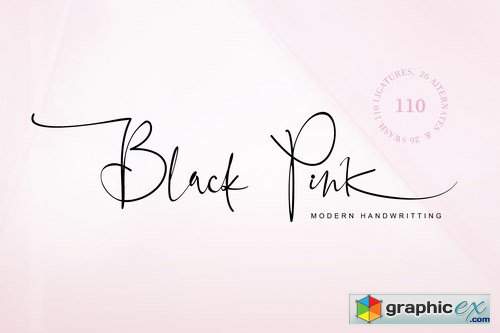
Black Pink Signature
introducing a new beautiful handwritten font, Black Pink Signature! Black Pink Signature is perfect for beautyfull logo, elegant logos, upscale packaging, wedding stationery, websites, and any other projects requiring a handwritten and luxurious touch. A wide range of swashes (a-z) and alternates (A-Z) are included so that you can give your logo or name a custom, hand-calligraphy look.